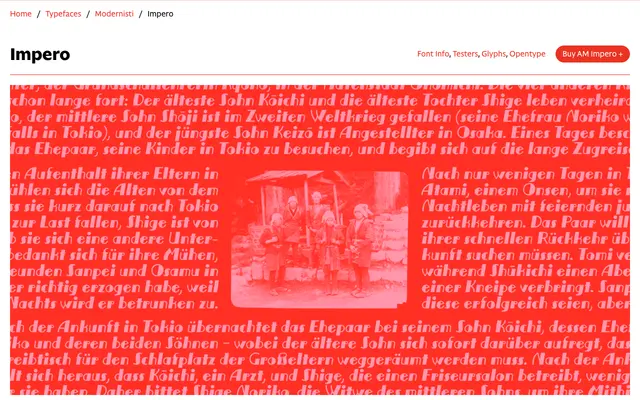
AM Impero
CAST · Antonella Sartorelli · 2025
AM Impero specimen from CAST
A revival of a pre-war Italian wood type by Xilografia di Verona, redrawn and optically corrected by Antonella Sartorelli with a stark 9-degree incline and extreme thick/thin contrast.
Based on a wood type original released by Xilografia di Verona before World War II, this single-weight geometric sans carries a 9-degree angle throughout and restricts each character to a single thick stroke, except M. Refinements for this revival include standardised thick/thin modulation, redrawn numerals and ampersand, and three OpenType stylistic sets offering normal, long and looped ascenders and descenders. The looped variant bears a close resemblance to the early Agfa logo from around 1925, suggesting a possible common source.
A geometrically constructed sans-serif with extreme thick/thin contrast and a consistent 9-degree incline throughout, placing it firmly in the display category as a revival of a pre-war Italian wood type modernist face.